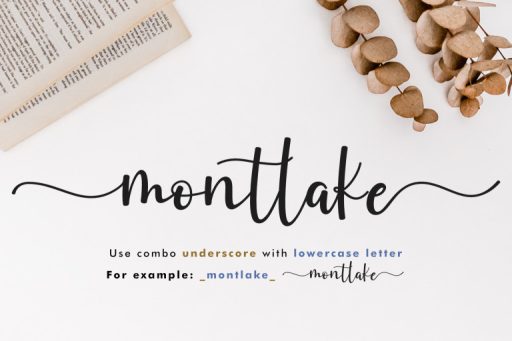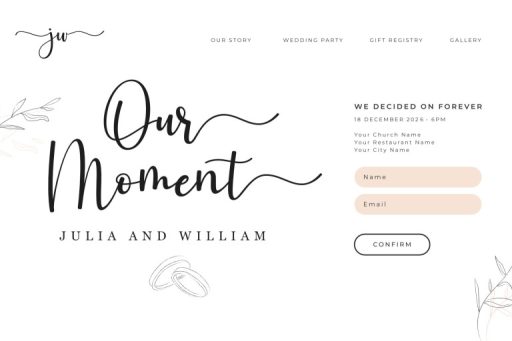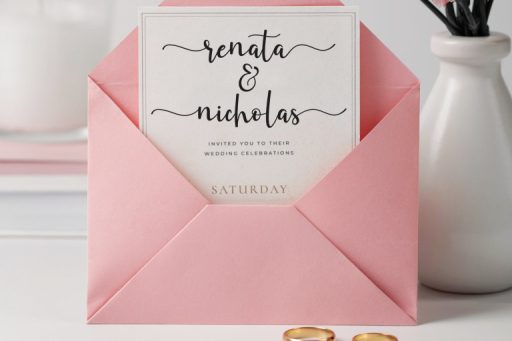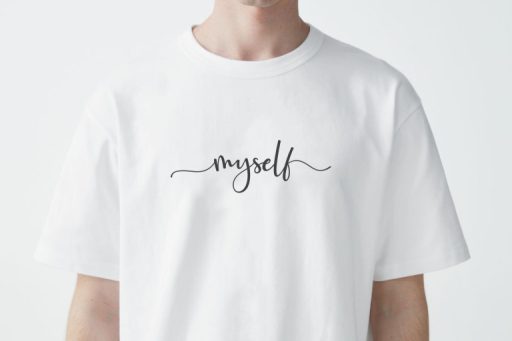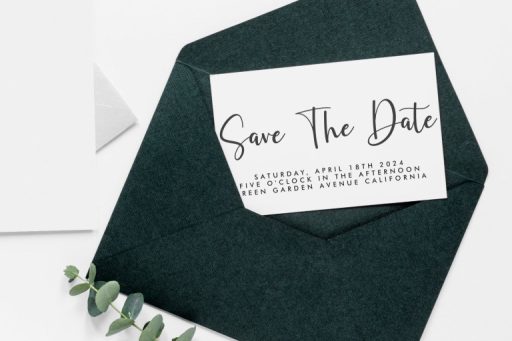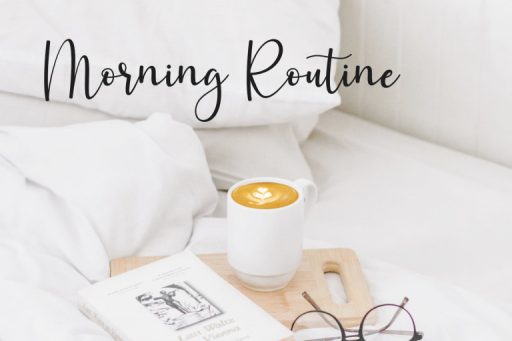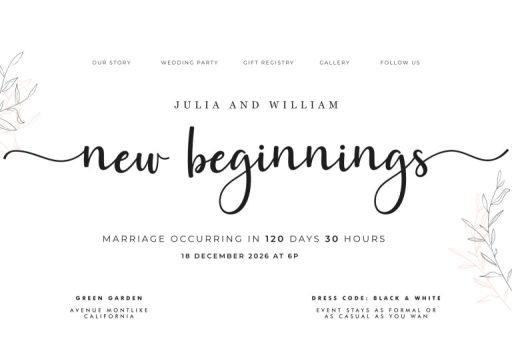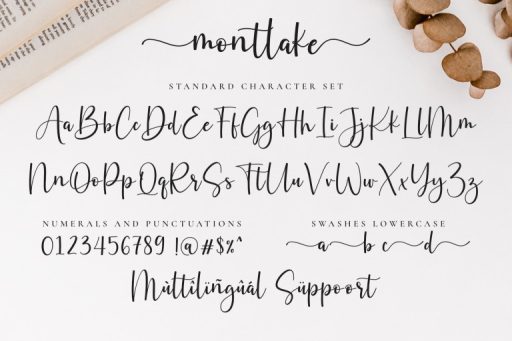
Montlake
Montlake - Tail
Introducing ‘Montlake Font’—where sophistication meets creativity! Elevate your projects with this exquisite font tailored for cute branding, enchanting wedding invitations, personalized wedding branding, and captivating website designs. Let Montlake Font be the signature touch that brings a perfect blend of elegance and charm to your creative endeavors.
Use the following combos for :
short lowercase beginning and ending swash
type: _a or a_ (underscore lowercase letter or lowercase letter underscore)
For example: _amelia_ _amanda_
• Beginning and ending swashes characters